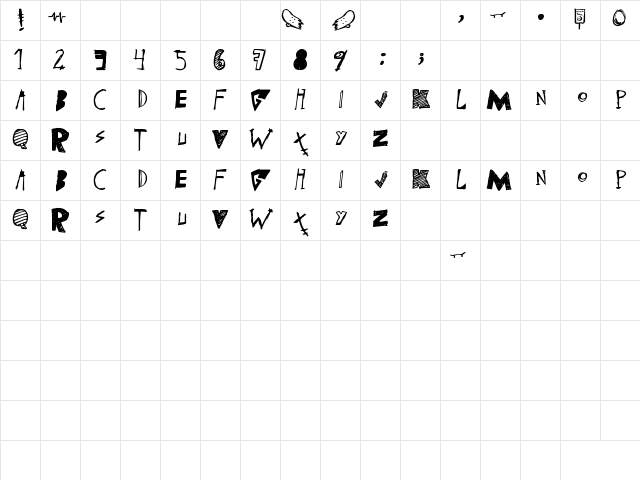
(skateboarding) Regular
Design Context for (skateboarding)
(skateboarding) is a composed and adaptable typeface that performs quietly and consistently across a wide range of design contexts.